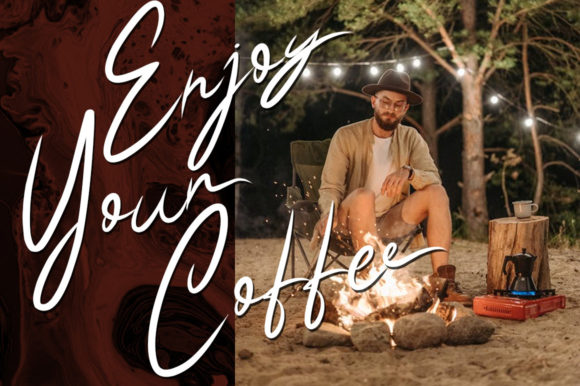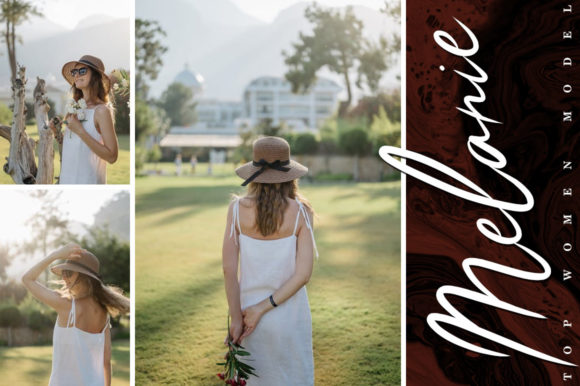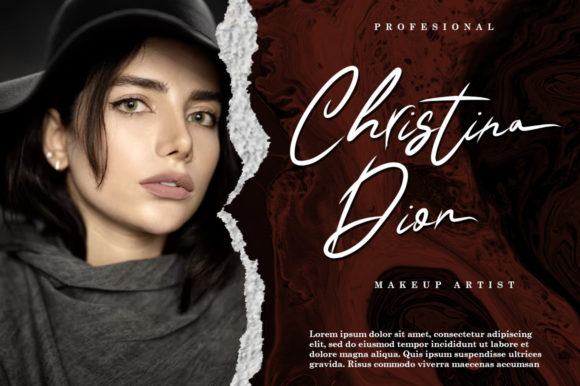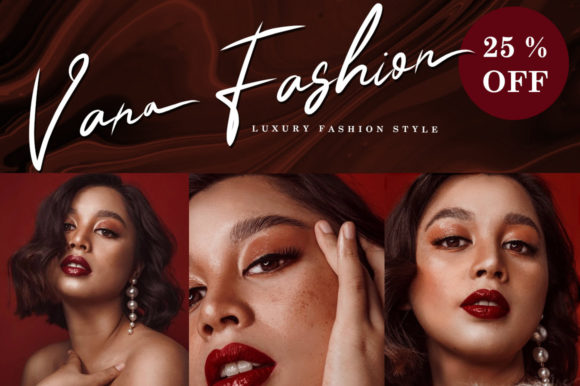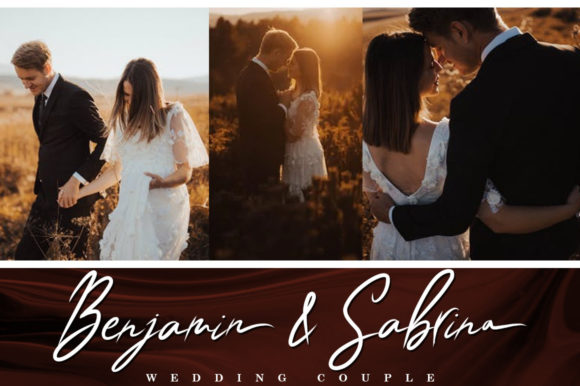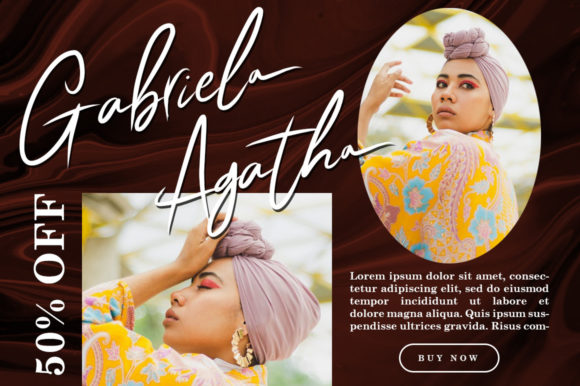
Introducing Classic Signature: The Ultimate Delicate Script Font for Designers and Crafters
Are you a designer or crafter looking for a font that exudes elegance and sophistication? Look no further than Classic Signature, a beautiful and delicate script font that’s perfect for a variety of branding projects. In this article, we’ll dive into the features and benefits of Classic Signature, and explore how it can elevate your designs and craft projects.
What is Classic Signature?
Classic Signature is a stunning script font that’s designed to add a touch of elegance and refinement to any project. Its delicate and fashionable lines make it perfect for a range of applications, from logos and t-shirt printing to creative products and more. Whether you’re working on a branding project for a luxury brand or creating a custom design for a craft project, Classic Signature is the perfect choice.
Key Features of Classic Signature
So what sets Classic Signature apart from other fonts? Here are just a few of its key features:
- Delicate and fashionable script font: Classic Signature is designed to be elegant and refined, making it perfect for projects where you want to make a sophisticated impression.
- PUA encoded: Classic Signature is PUA (Private Use Area) encoded, which means you can access all of the glyphs and swashes with ease. This makes it easy to customize your designs and add unique touches.
- Perfect for branding projects: Classic Signature is ideal for a range of branding projects, including logos, t-shirt printing, and creative products.
Benefits of Using Classic Signature
So why should you choose Classic Signature for your next design or craft project? Here are just a few of the benefits of using this beautiful font:
- Elegance and sophistication: Classic Signature adds a touch of elegance and sophistication to any project, making it perfect for luxury brands and high-end designs.
- Versatility: Classic Signature can be used for a range of projects, from logos and t-shirt printing to creative products and more.
- Easy to use: Classic Signature is PUA encoded, making it easy to access all of the glyphs and swashes. This means you can focus on designing, rather than getting bogged down in complicated font files.
How to Use Classic Signature in Your Designs
So how can you use Classic Signature in your designs? Here are a few ideas to get you started:
- Logos: Classic Signature is perfect for logos, particularly for luxury brands or high-end designs. Use it to create a custom logo that exudes elegance and sophistication.
- T-shirt printing: Classic Signature is a great choice for t-shirt printing, particularly for designs that require a touch of elegance and refinement.
- Creative products: Classic Signature can be used to create a range of creative products, from custom stationery to home decor items.
Tips for Getting the Most Out of Classic Signature
Here are a few tips for getting the most out of Classic Signature:
- Experiment with different colors: Classic Signature looks great in a range of colors, from bold and bright to soft and pastel. Experiment with different colors to find the perfect look for your design.
- Play with swashes and glyphs: Classic Signature’s PUA encoding means you can access a range of swashes and glyphs. Experiment with these to add unique touches to your designs.
- Pair with other fonts: Classic Signature can be paired with a range of other fonts to create a unique and interesting look. Experiment with different pairings to find the perfect combination.
| Font Name | Classic Signature Font |
| Author | Elbanadha Creative |
Classic Signature is a beautiful and delicate script font that’s perfect for designers and crafters looking to add a touch of elegance and sophistication to their projects. With its PUA encoding and range of glyphs and swashes, it’s easy to use and customize. Whether you’re working on a branding project or creating a custom design for a craft project, Classic Signature is the perfect choice.